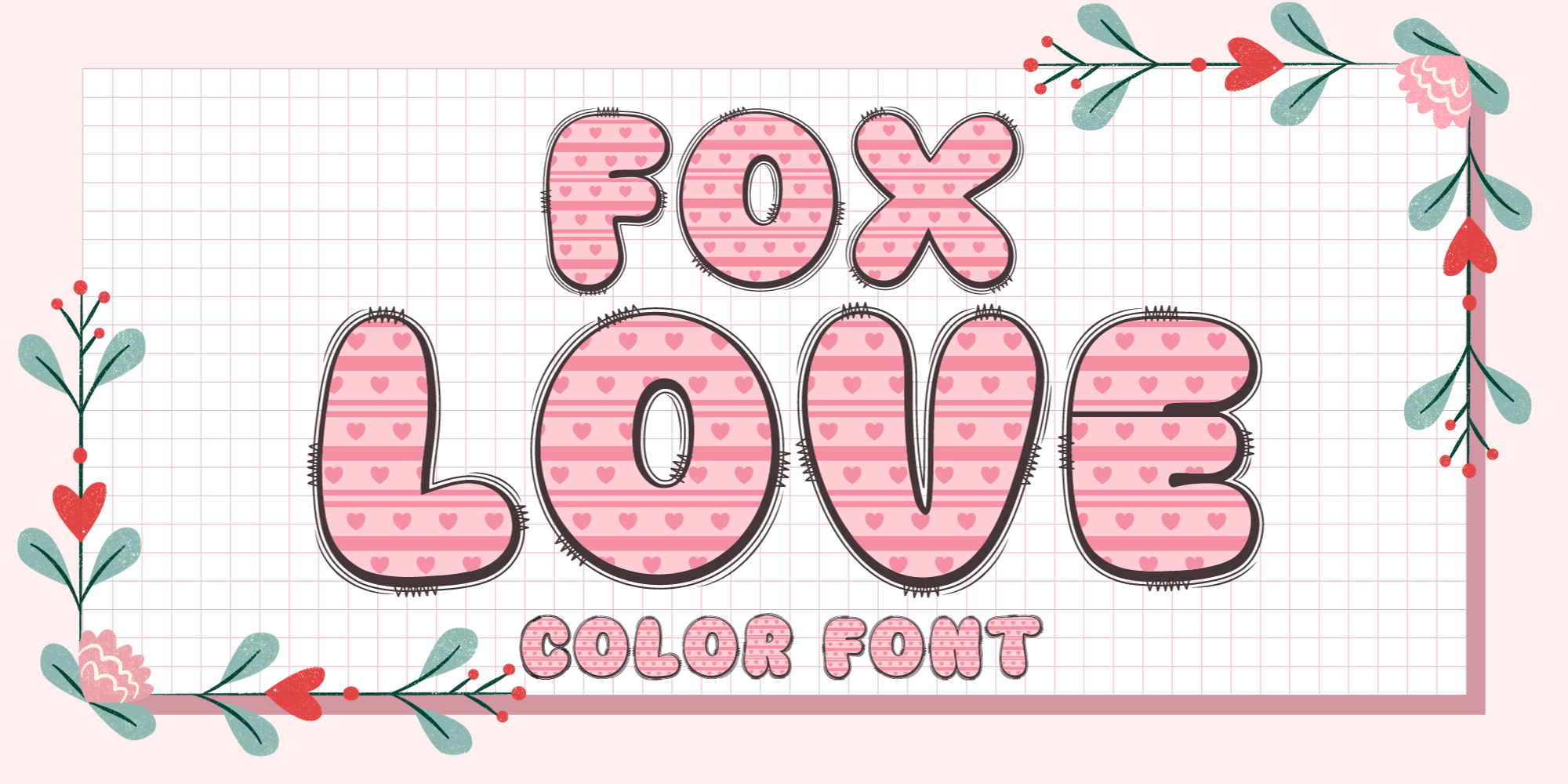
FOX LOVE
Designed by Rattana Rattanawan, Fox Love is a display sans font family published by Fox7.
Fox Love is a cute and fun color font. This font is your go-to for crafting cute greeting cards that express affection and warmth. Whether you’re a designer, a social media influencer, or someone with a penchant for creative expression. Fall in love with its authentic feel and use it to create gorgeous invitations, beautiful stationary art, eye-catching social media posts, and cute greeting cards.